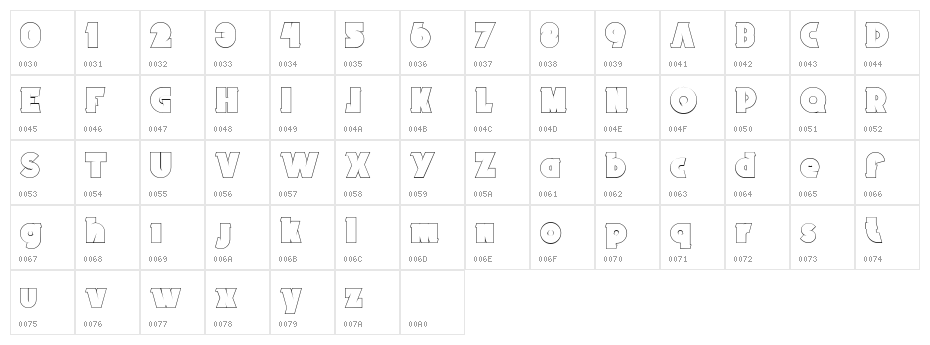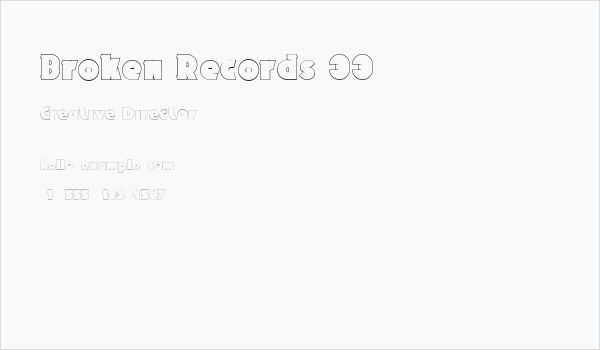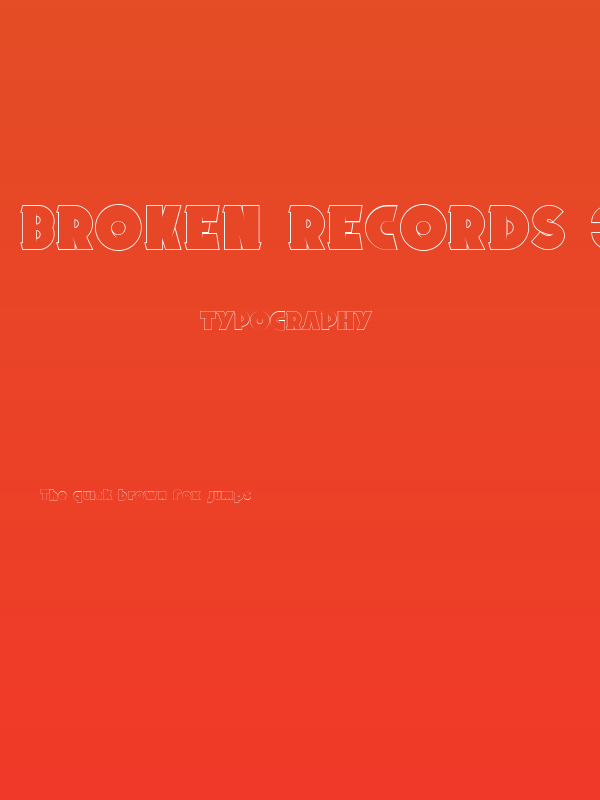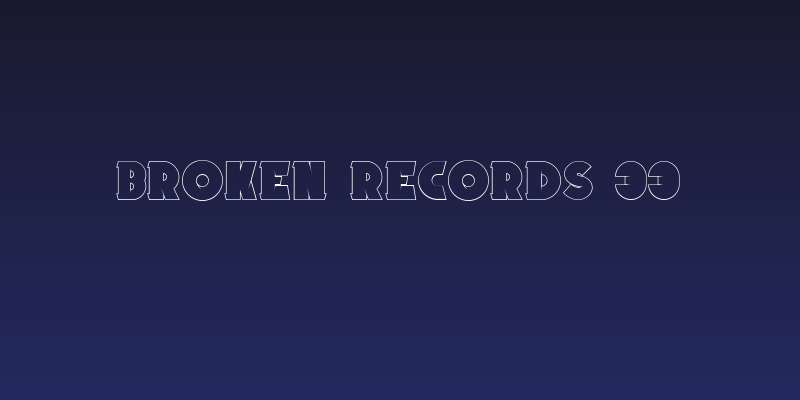
Broken Records 33 Font
Broken Records 33 Description
This font features a bold, geometric style with a distinct, playful character. Each letter is crafted with sharp angles and a blocky appearance, giving it a strong presence. The uppercase and lowercase letters maintain a consistent weight, while the numbers and special characters follow the same bold design. The font's unique style is characterized by its thick strokes and minimal contrast, making it ideal for eye-catching designs. Its decorative nature is perfect for projects that require a fun and engaging look.
| Proposed Projects | Ideal for posters, logos, album covers, and any design that requires a bold, eye-catching typeface. |